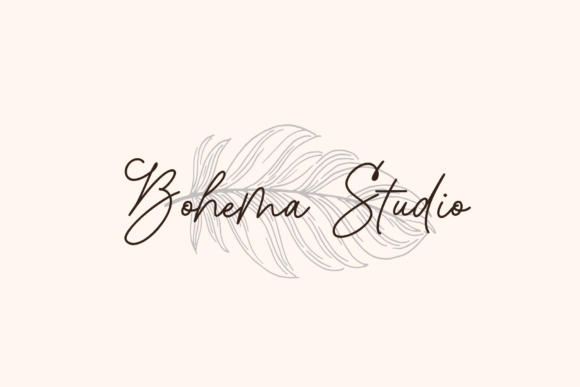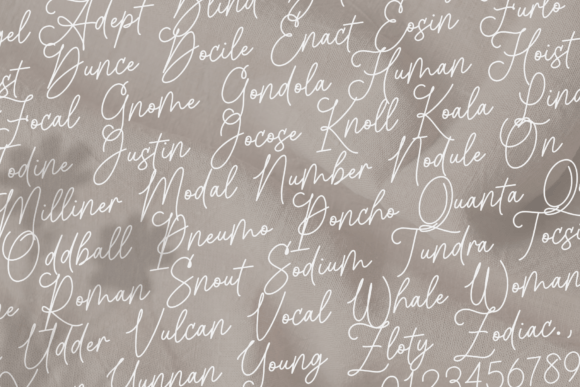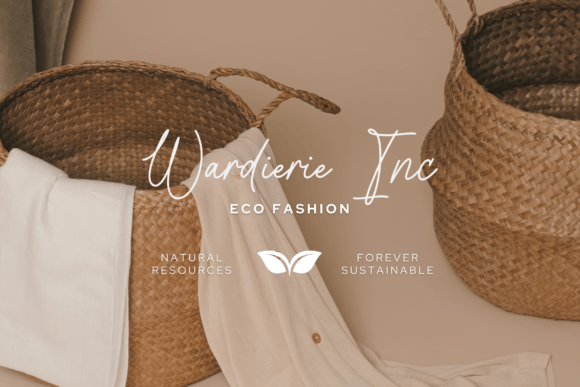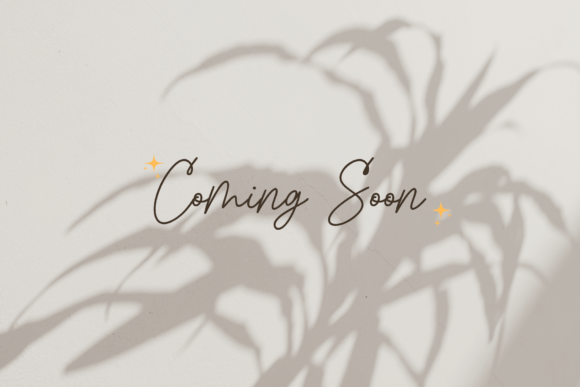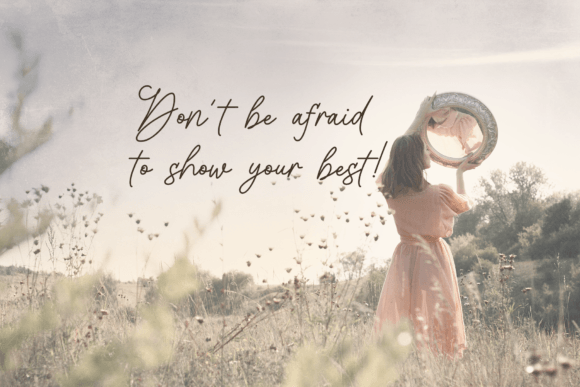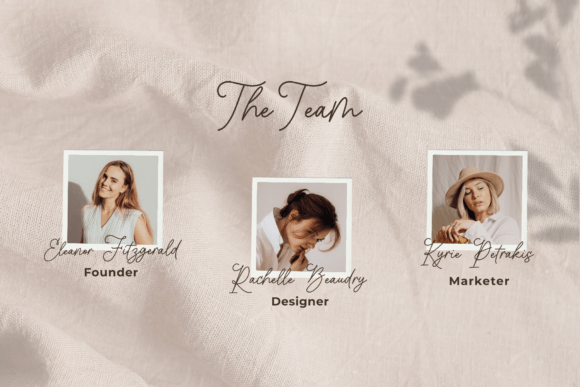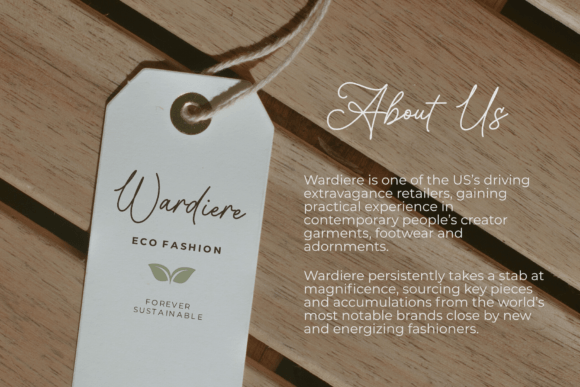
Astutely Font
About Astutely Font
Introducing “Astutely,” an elegant and refined handwritten font with a unique touch. Characterized by its single-line, sketch-like design, this font is crafted with a sense of sophistication. Its distinct and timeless style makes “Astutely” a standout choice for creating spectacular designs that leave a lasting impression.
The elegance of “Astutely” is immediately apparent, capturing attention with its refined touch. The single-line, sketch-inspired design adds a unique and artistic flair to the font, making it a versatile option for a range of design applications.
The timeless style of “Astutely” ensures that it can be applied to various projects without feeling dated. Whether you’re working on branding, invitations, posters, or any other creative endeavor, this font brings a sense of sophistication that stands the test of time.
The single-line structure of “Astutely” contributes to its distinctiveness. The sketch-like quality adds an artistic touch, making it suitable for projects that seek a handcrafted and personalized aesthetic. This makes the font particularly well-suited for designs that require a balance of elegance and creativity.
Fall in love with the versatility of “Astutely” as you explore its application in creating spectacular designs. From branding materials to invitations and beyond, this font is poised to add a touch of refinement and artistry to your creative projects.
In summary, “Astutely” is more than just a font; it’s a design asset that brings elegance, uniqueness, and a touch of timelessness to your creations. Let it be the key element that elevates your designs, creating a visual impact that resonates with sophistication and artistic expression.